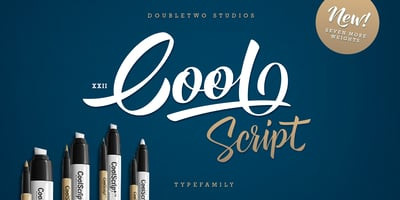
The XXII CoolScript Font is an excellent choice for designs that demand a fresh, vibrant, and distinctly cool handwritten aesthetic, perfect for adding a casual yet stylish touch. Imagine it gracing the logos of modern lifestyle brands, adding an edgy and authentic feel to streetwear designs, or bringing a spontaneous, artistic vibe to social media graphics for influencers. It's also perfectly suited for captivating album art, unique packaging for creative products, and any project where you want to convey a sense of youthfulness, authenticity, and contemporary flair. With its distinctive brush-like strokes and often energetic flow, the XXII CoolScript Font is ideal for projects that aim for visual impact and a memorable impression.
What makes the XXII CoolScript Font truly exciting is its remarkable ability to combine the spontaneity of a handmade script with a clean, readable structure. It feels genuinely hand-drawn, instantly giving your designs an intimate and exclusive quality, but without sacrificing clarity. This font is perfect for establishing a brand identity that feels modern, artistic, and unapologetically unique, ensuring your visual communication is not just seen, but truly felt. The dynamic rhythm and often subtle imperfections in its letterforms ensure it stands out in a crowded visual landscape, making your designs truly memorable. The XXII CoolScript Font Free Download offers a fantastic opportunity to infuse your projects with this distinctive character.
The XXII CoolScript Font family is typically designed to offer versatility while maintaining its signature expressive and contemporary script style. While specific family members can vary, you can often expect to find:
• XXII CoolScript Regular (the primary expressive script)
• XXII CoolScript Bold (for added emphasis on titles or special words)
• XXII CoolScript Slanted (or Italic, for a more dynamic lean)
• XXII CoolScript Textured (if it includes a version with a subtle brush texture for added authenticity)
• XXII CoolScript Alternates (often including stylistic alternates or ligatures to enhance the natural handwritten look and provide creative variations).
These variations provide flexibility for different design applications, allowing you to create engaging visual hierarchies and maintain a consistent, powerful aesthetic across all your projects.